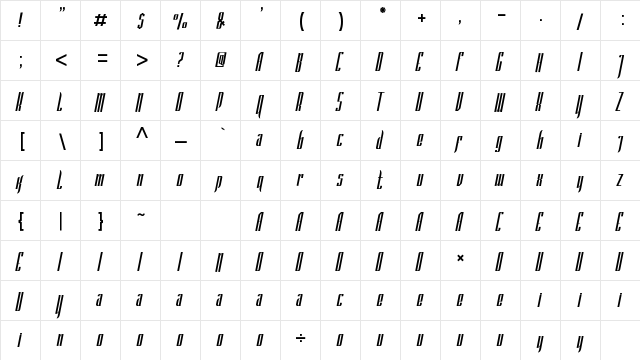
Unbockend Regular
Design Context for Unbockend Typeface
Unbockend is a composed and adaptable typeface that performs quietly and consistently across a wide range of design contexts.